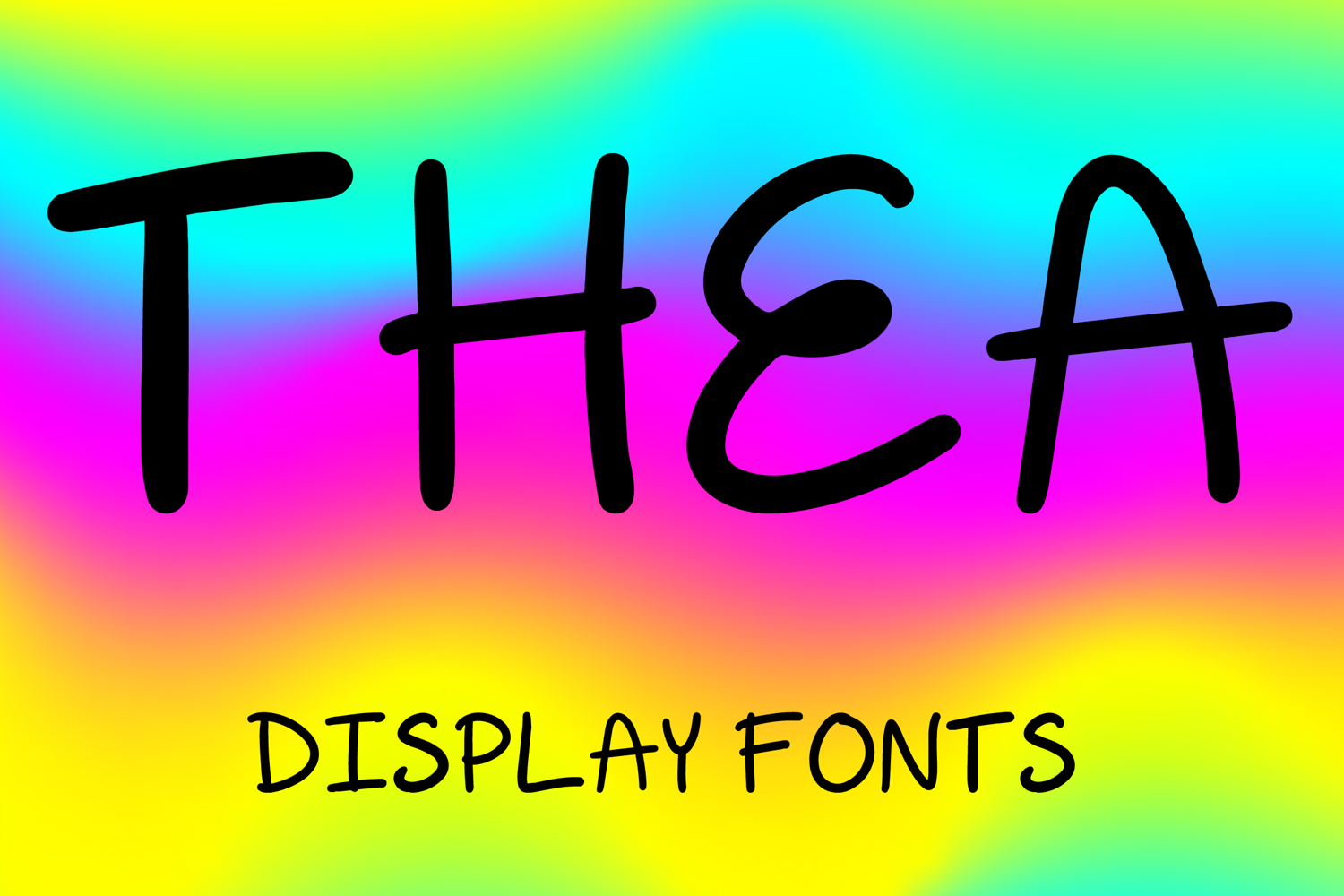
THEA
THEA is a playful display font with a clean hand-drawn style and soft modern charm. Its uppercase letterforms feature smooth rounded strokes, simple organic curves, and a friendly minimalist look that feels fresh, cheerful, and easy to read. Designed with uppercase letters A–Z and numbers 0–9, THEA is perfect for logos, branding, posters, packaging, social media graphics, and creative projects that need a fun and approachable statement.